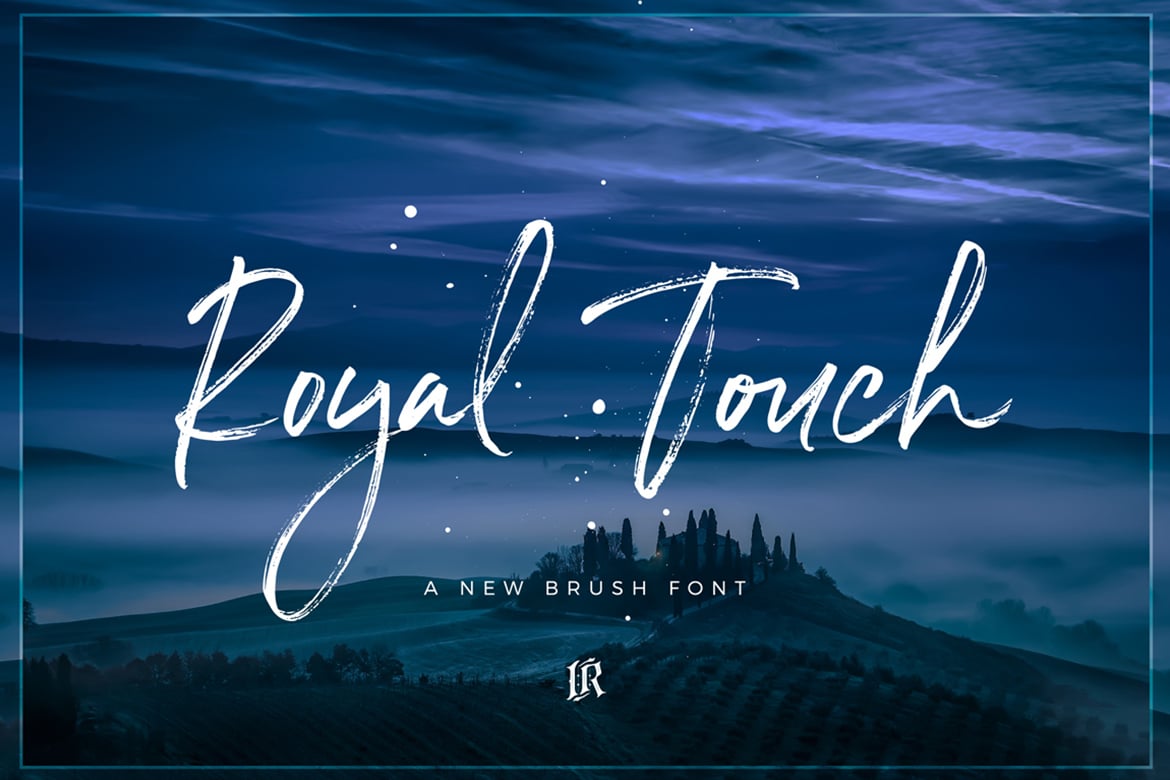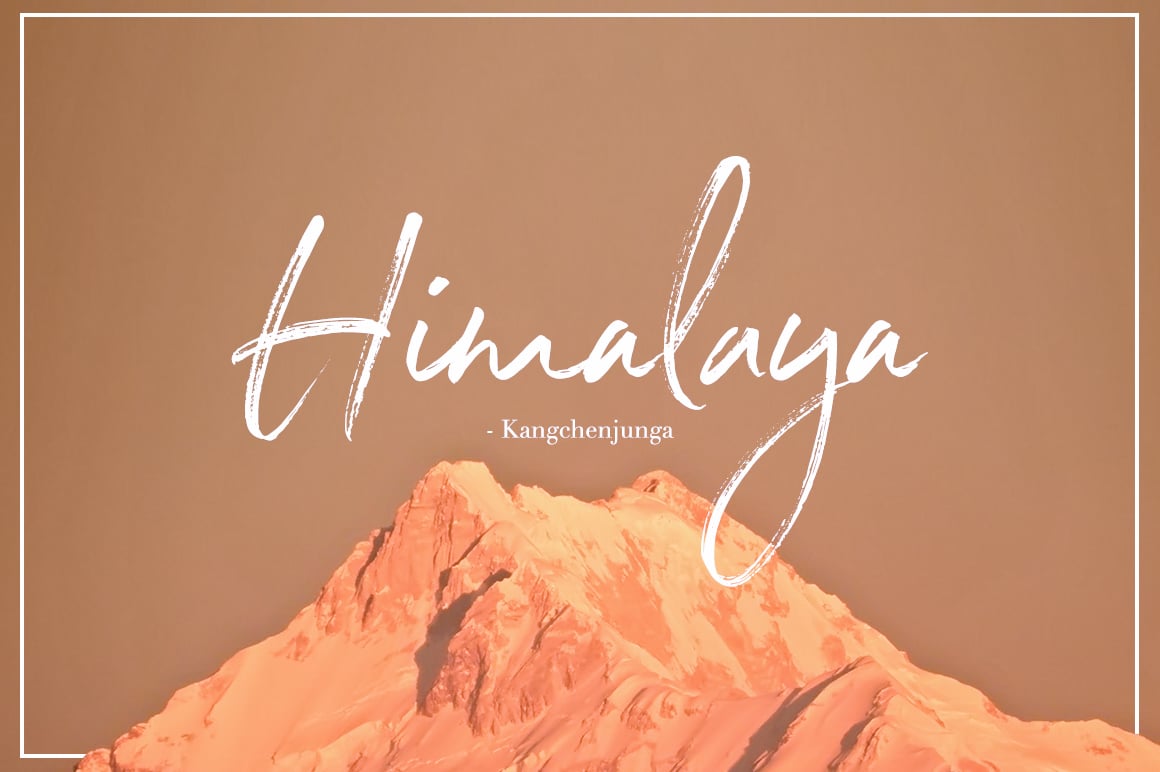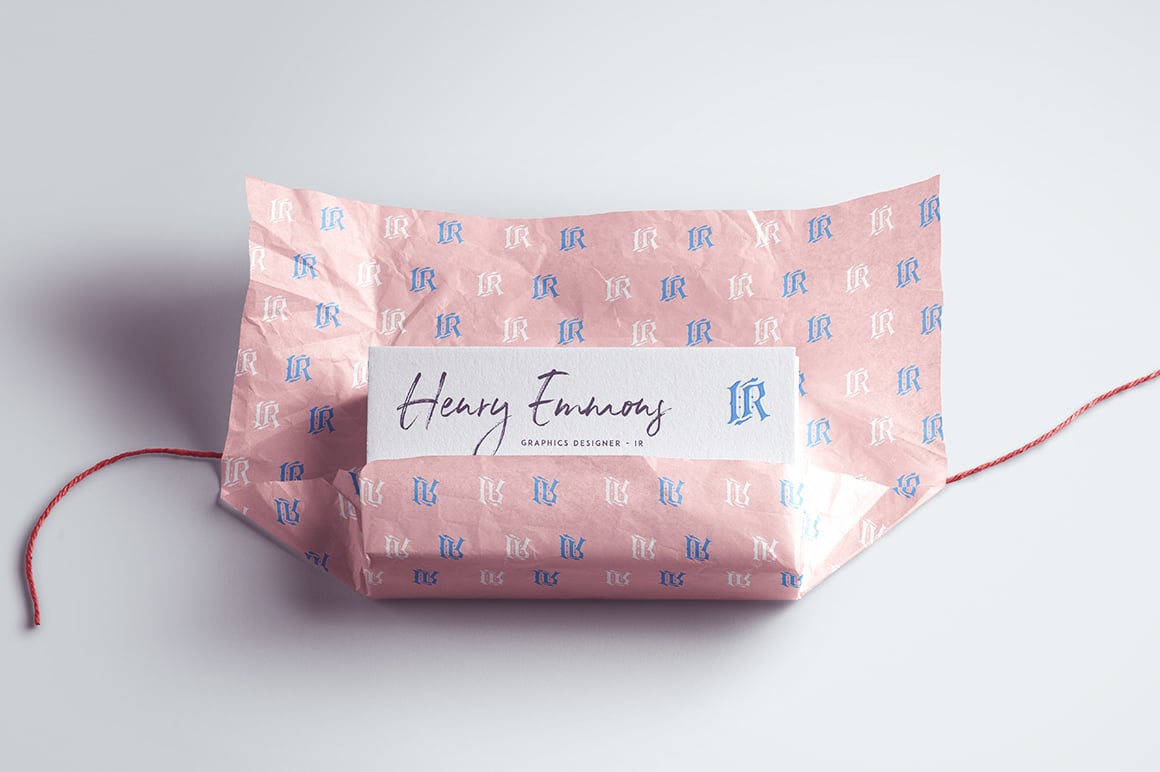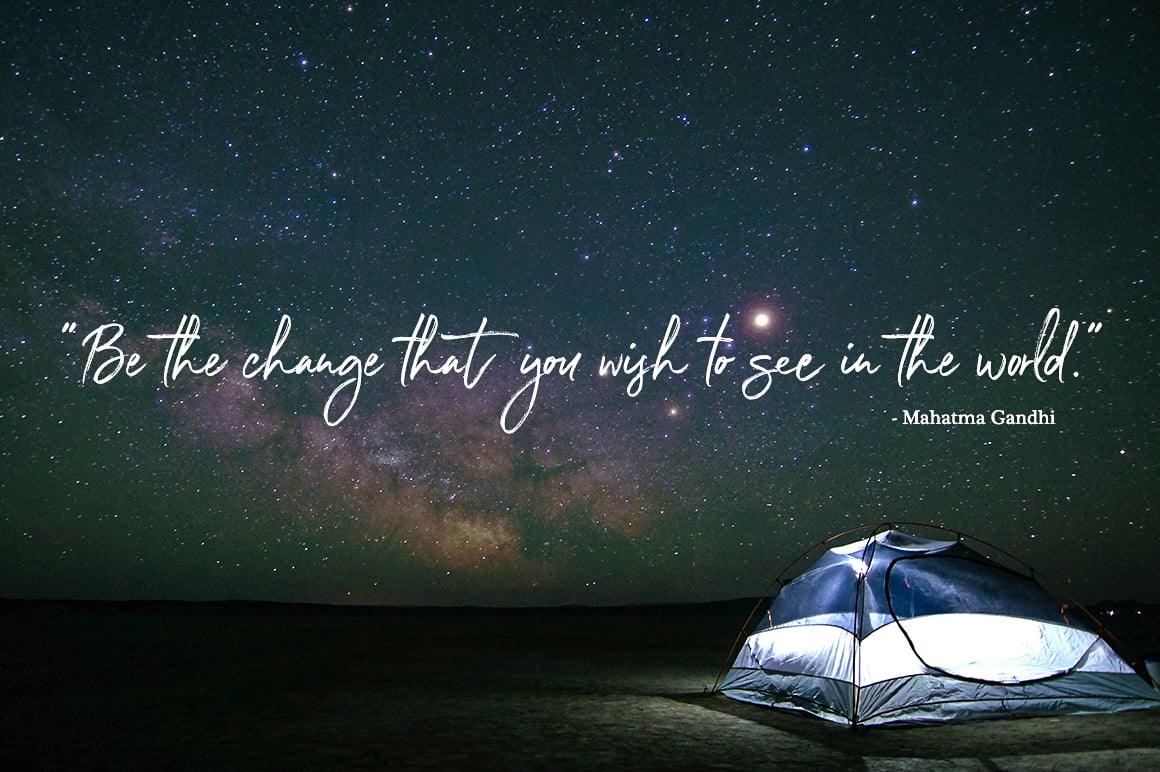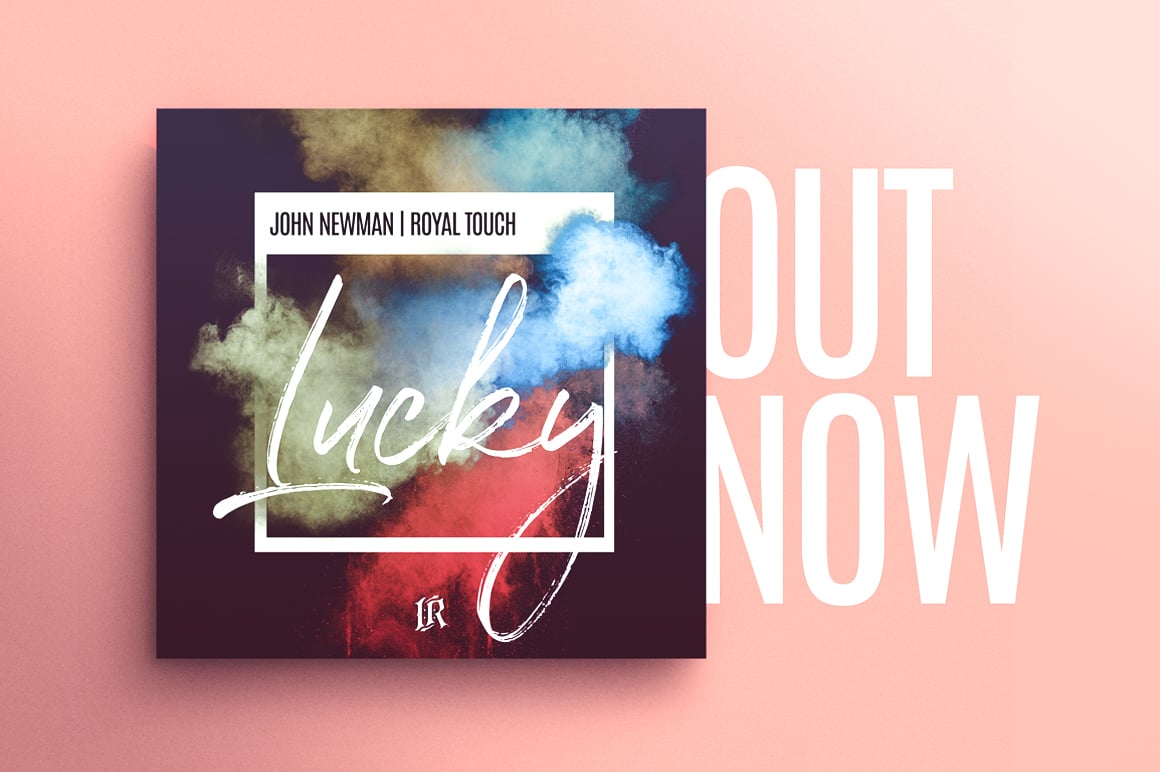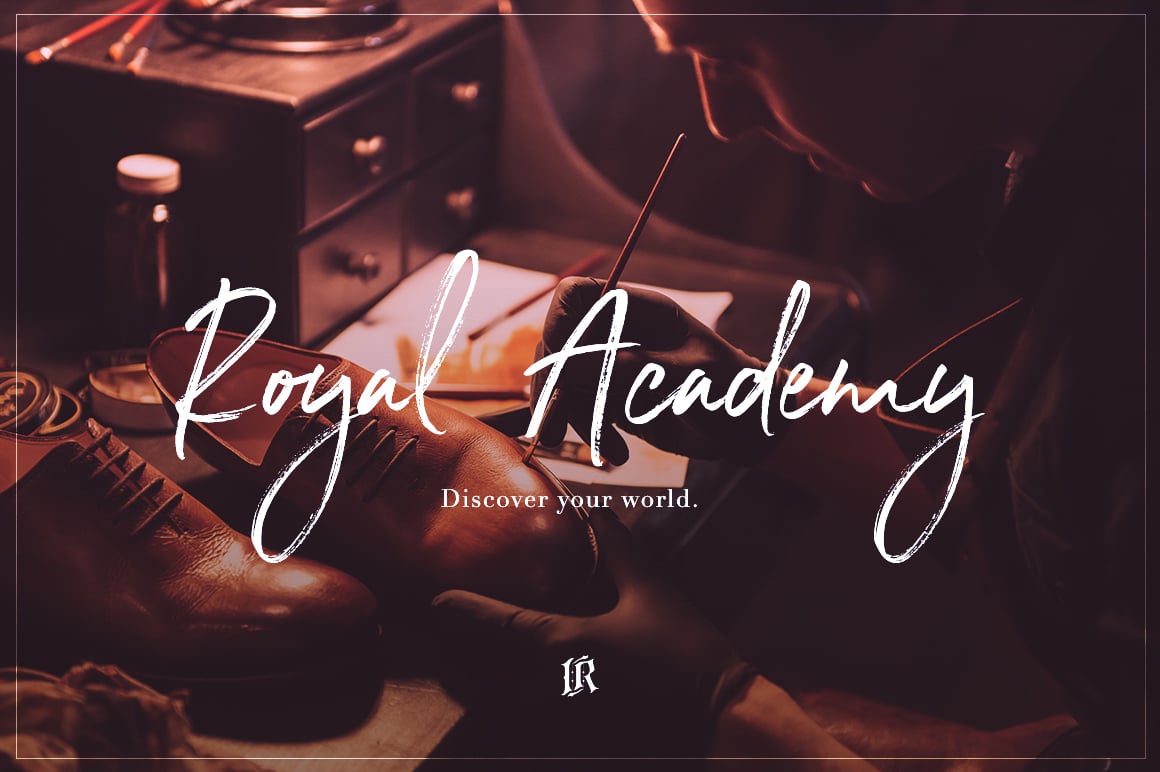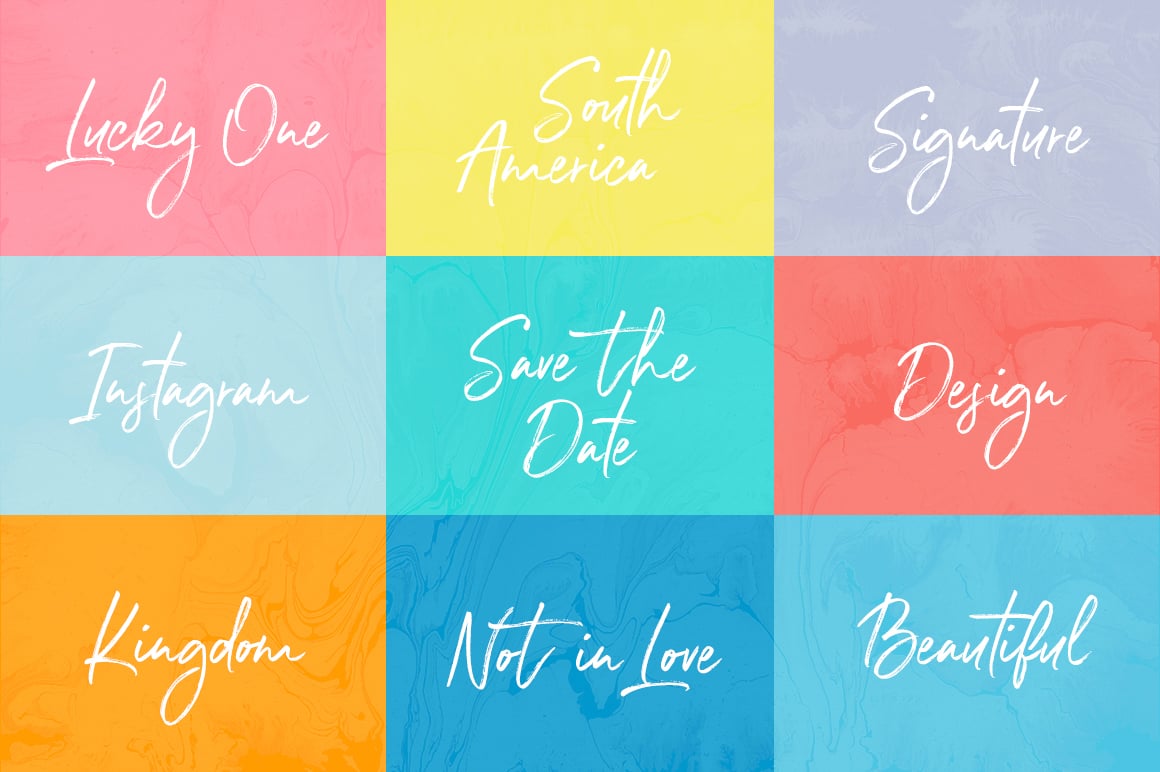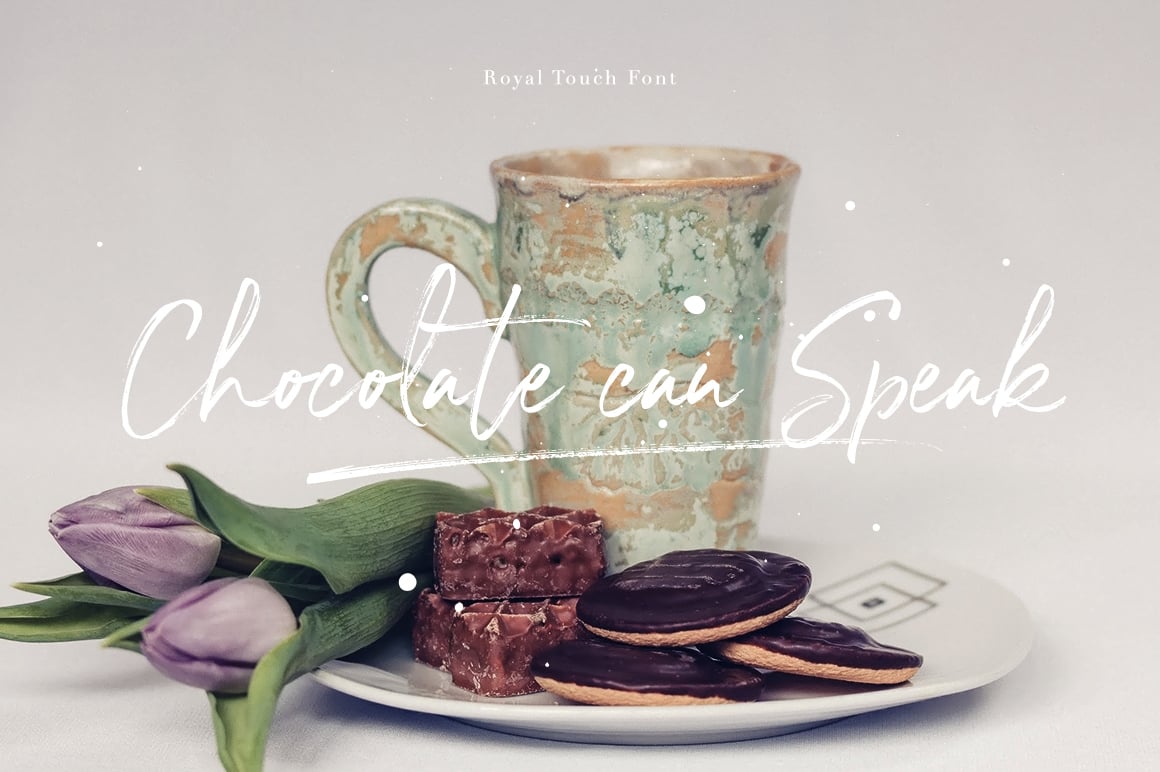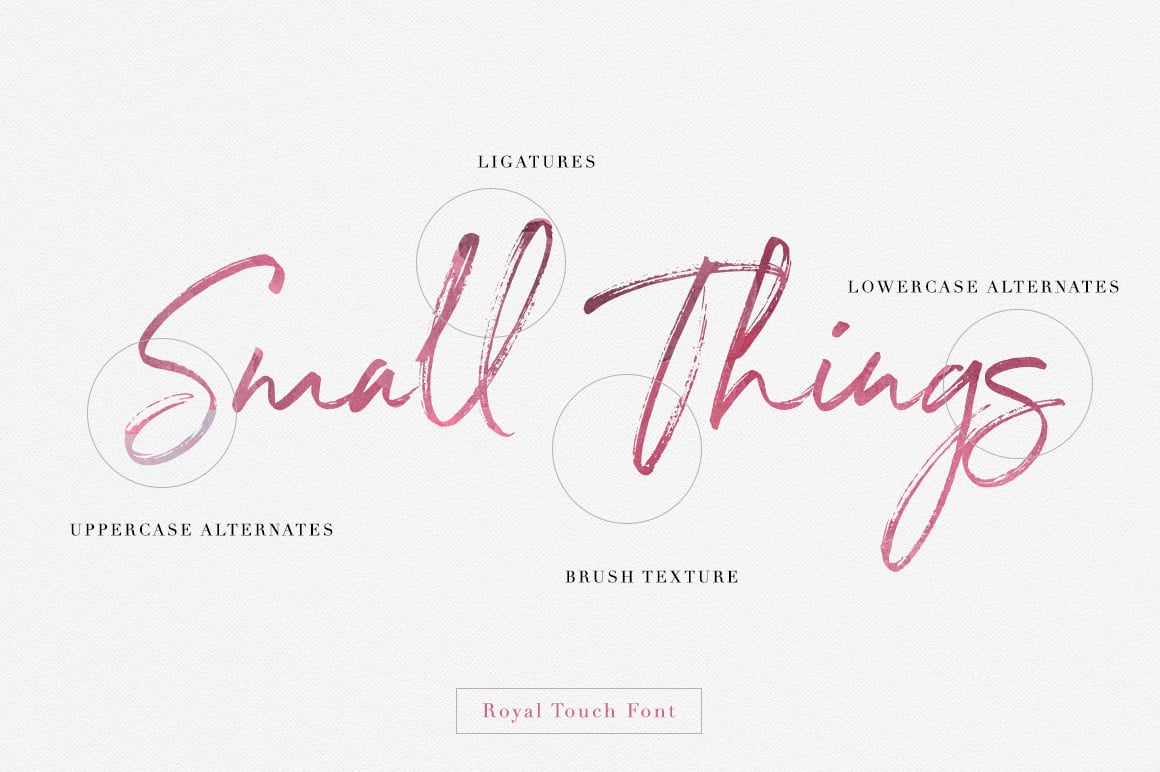
Royal Touch Font
Royal Touch is hand brushed font with multilingual support. Is ideal for t-shirts, magazines, phone covers, social media, restaurant menus, greeting cards, invitations, weddings, headers and many more.
This brush font comes with a complete set of lowercase and uppercase characters, a large range of punctuation ligatures, numerals and and multilingual support.
Royal Touch is a set of 419 glyphs, Upper and Lowercase characters with automatic ligatures, numerals, lot of punctuation glyphs and 2 alternates for each character.
Royal Touch Alt1 The original font, with an alternate set of uppercase and lowercase letters changed for the standard characters.
Royal Touch Alt2 The original font, with an alternate set of uppercase and lowercase letters changed for the standard characters.